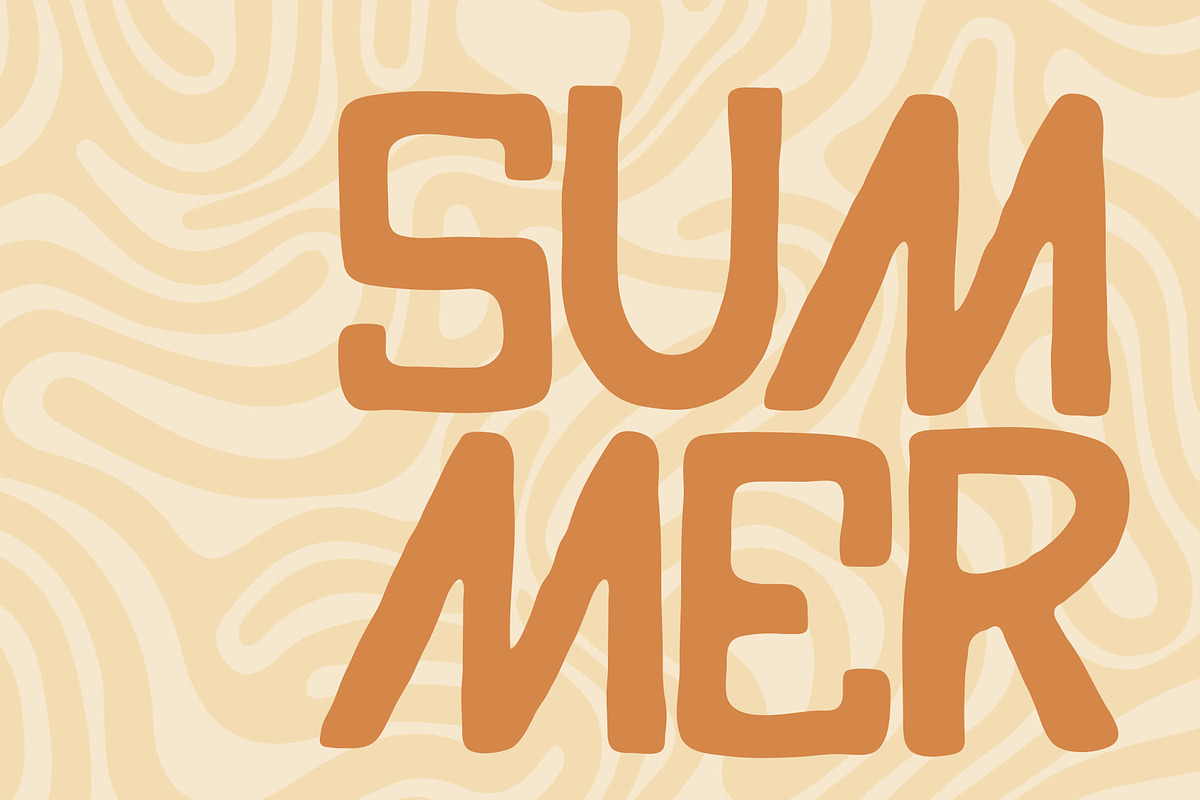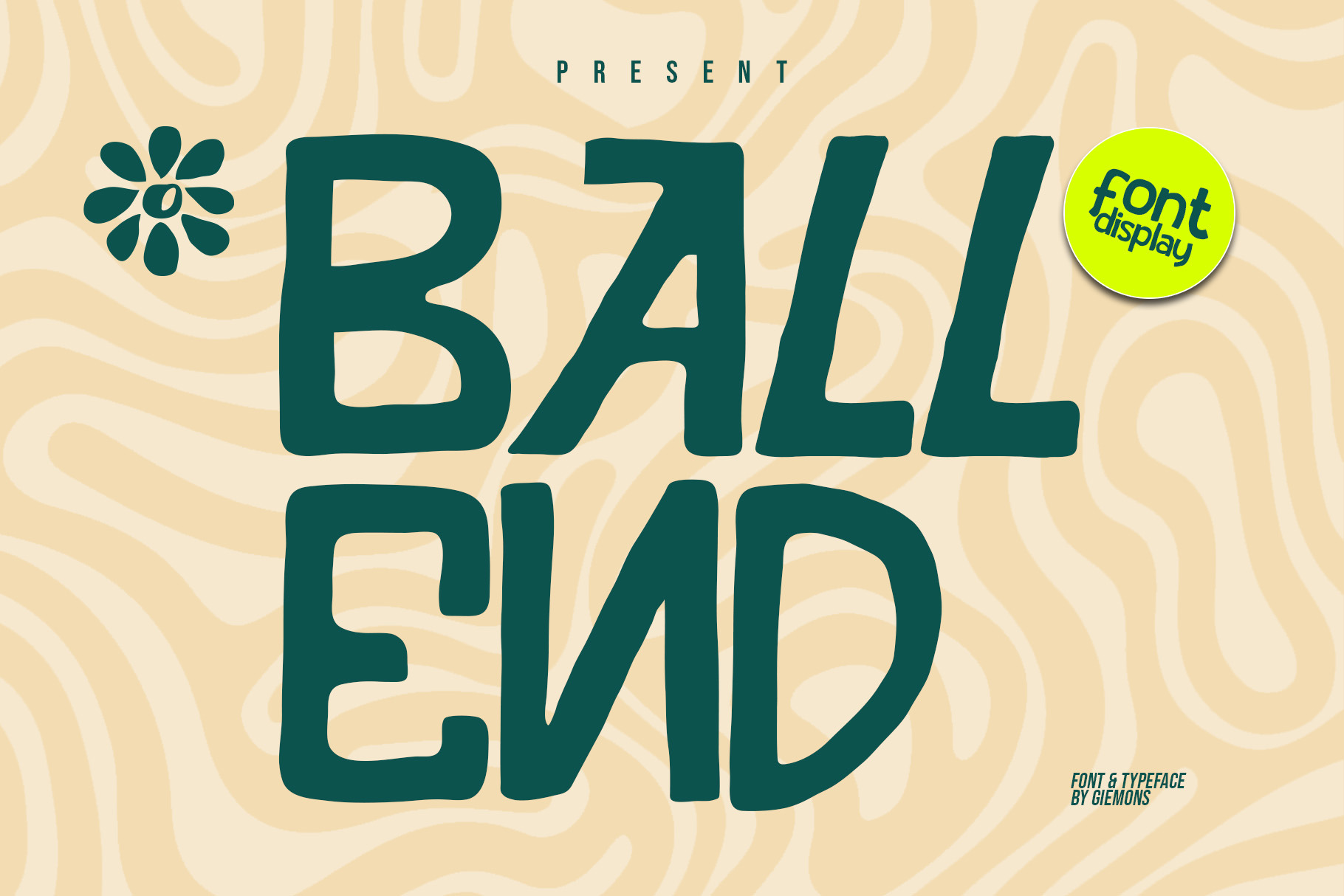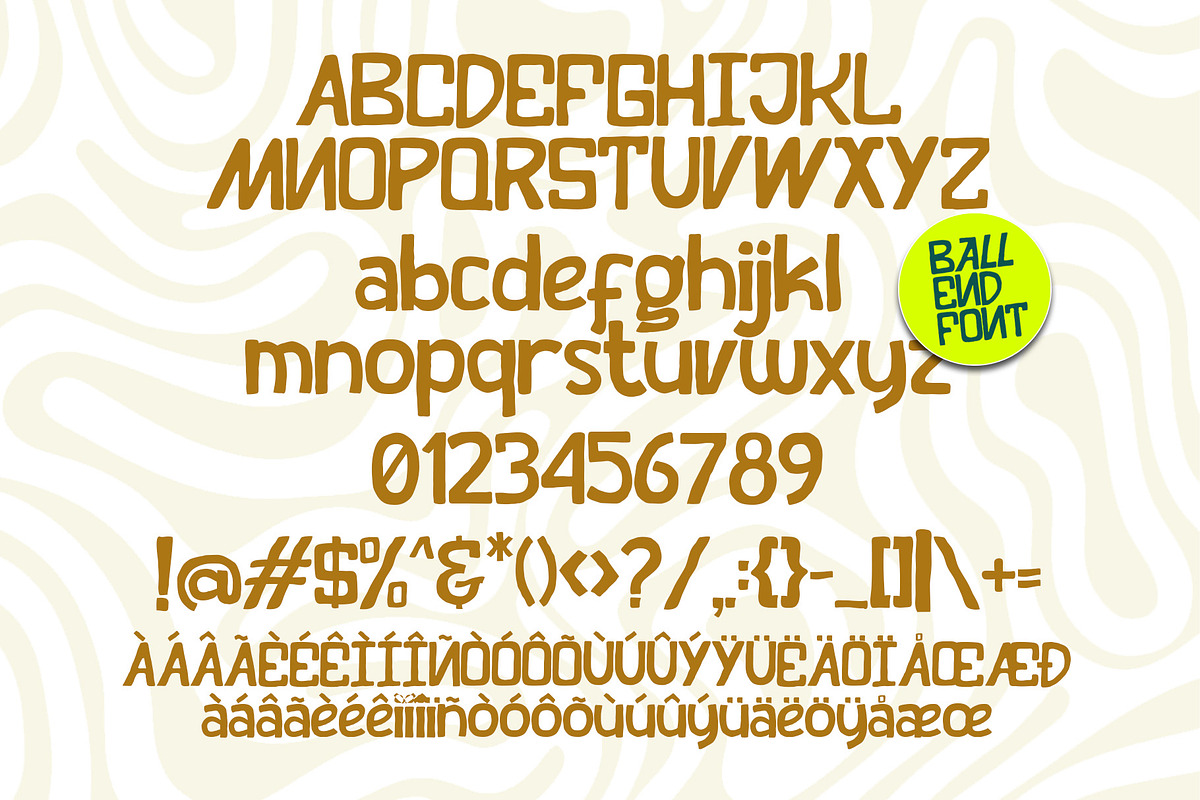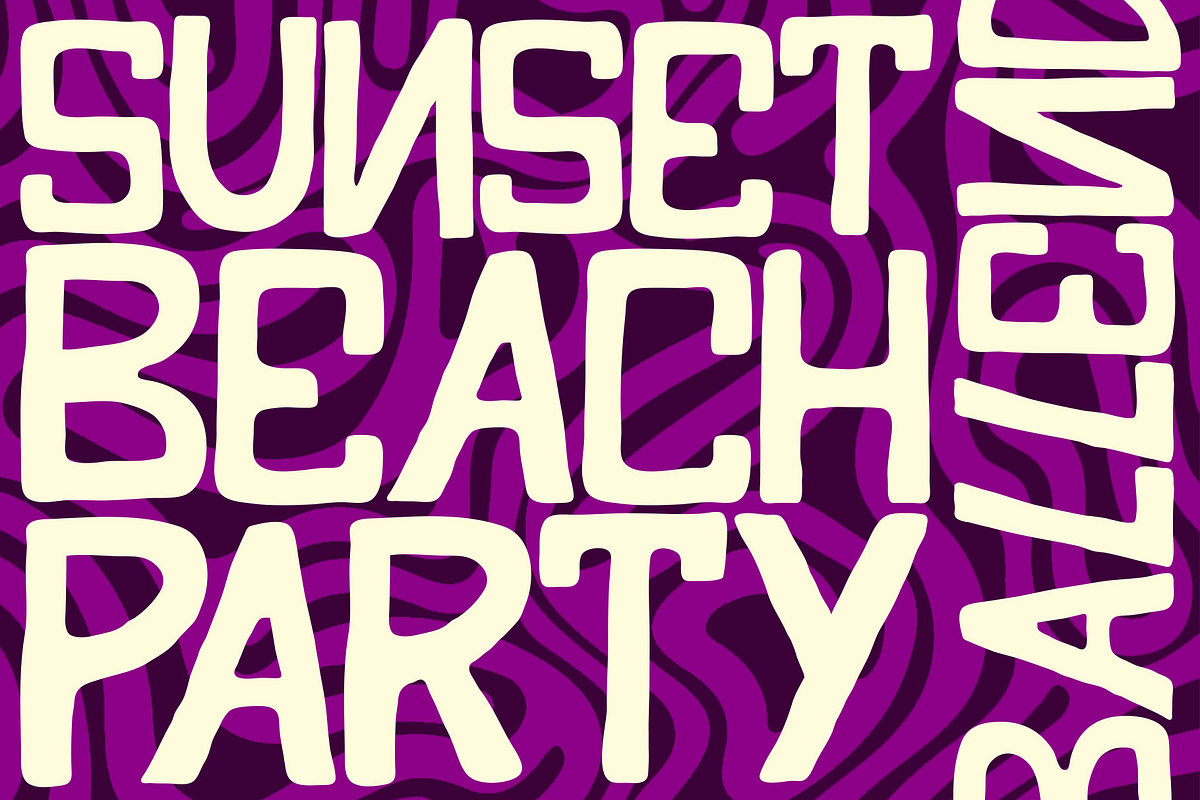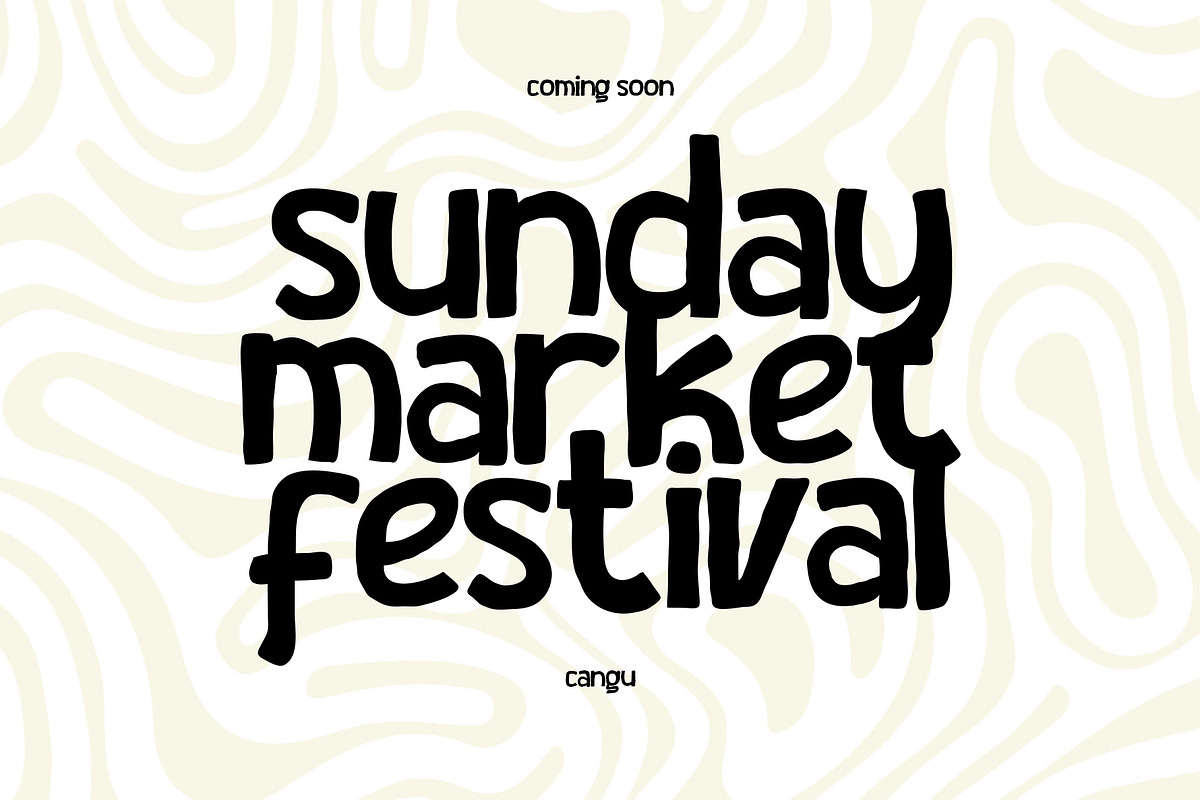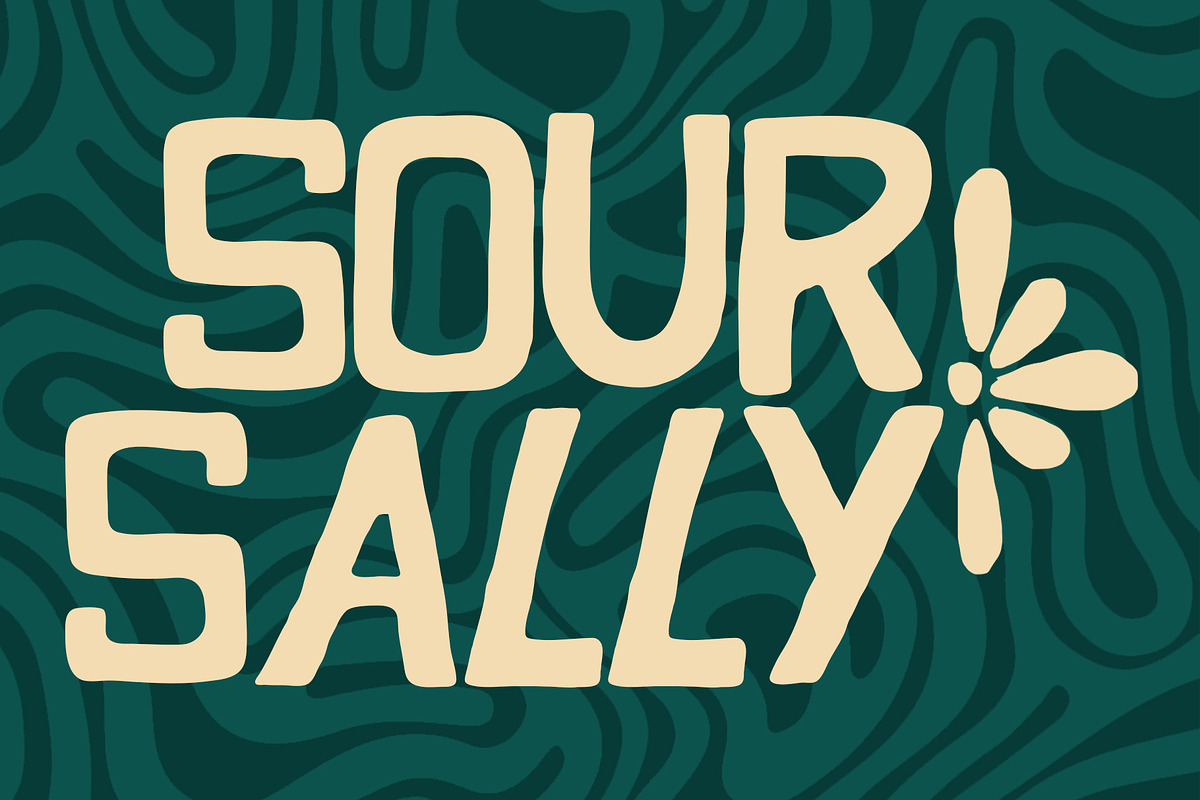
BALLEND FONT
a BALLEND FONT is hand drawing with Unique modern Summer style. Can make it natural vibe, Use for awesome logos, headlines, posters and anymore with a touch of natural style.